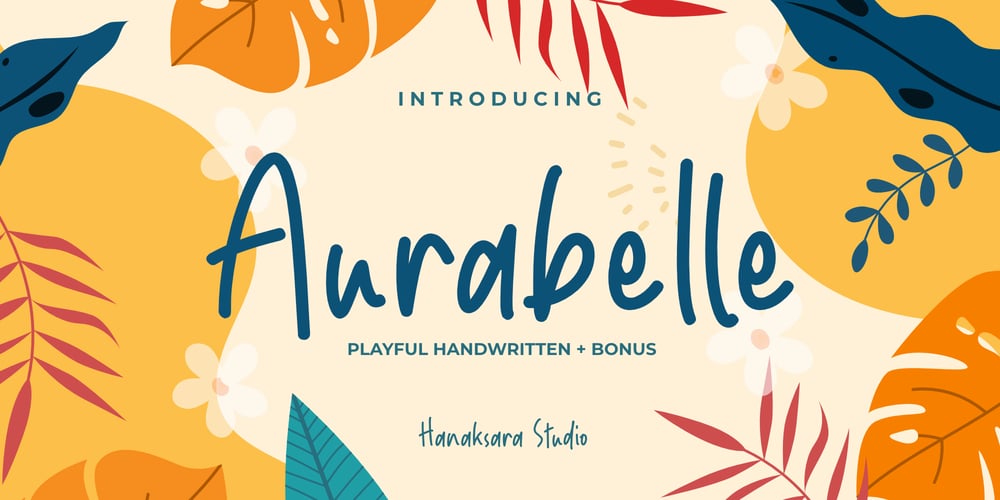
Aurabelle Font Family was designed by Darul Qutni and published by Hanaksara Studio. Aurabelle contains 1 styles and family package options. Aurabelle is a playful font with a hand-drawn style that’s great for fun and light-hearted projects like children’s books, posters, greeting cards, and social media graphics. It works well for both body text and headlines and can be combined with other fonts for a unique design. The font includes alternate characters and ligatures for customization and is available in regular and bold weights.